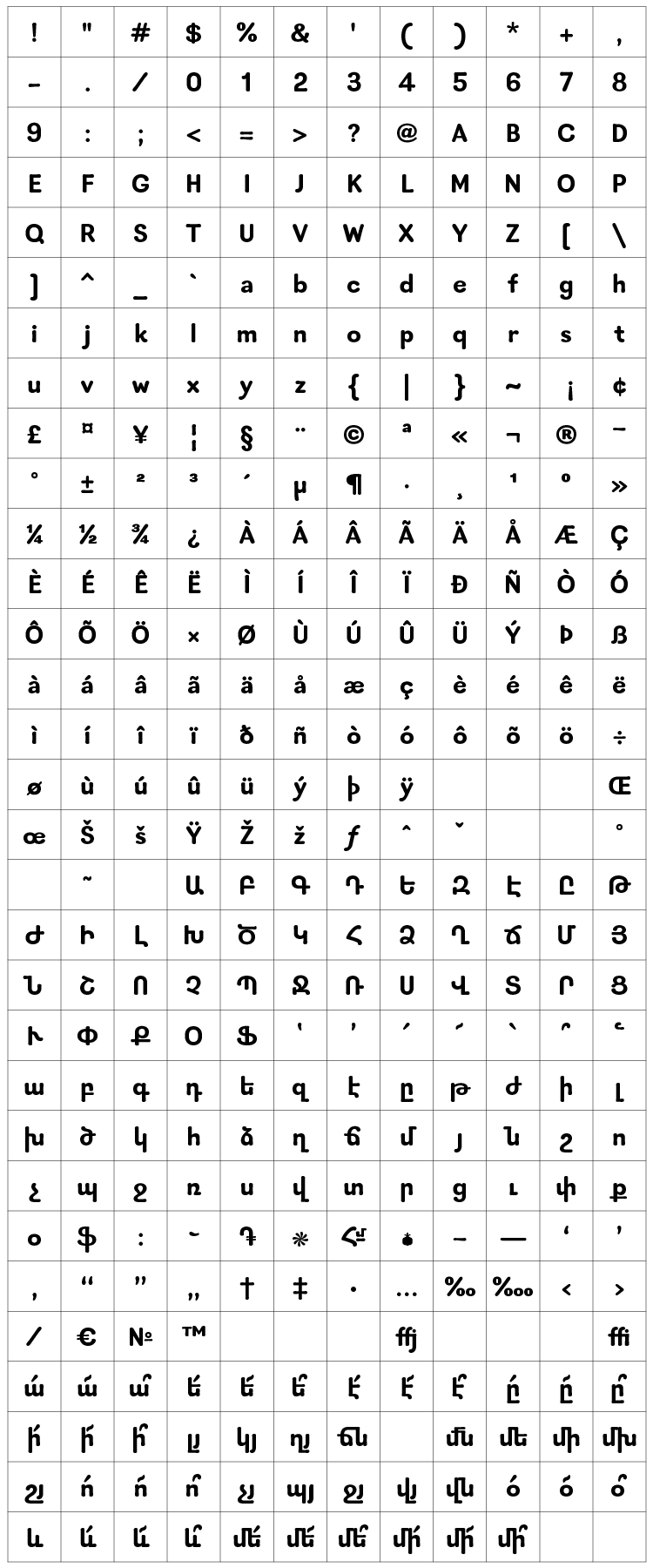
HASH Eva Bold
Designer: Hrachuhi Grigoryan
Design date: 2017
The font family includes: Armenian and Latin alphabet systems.
This font can be used as display and text font.